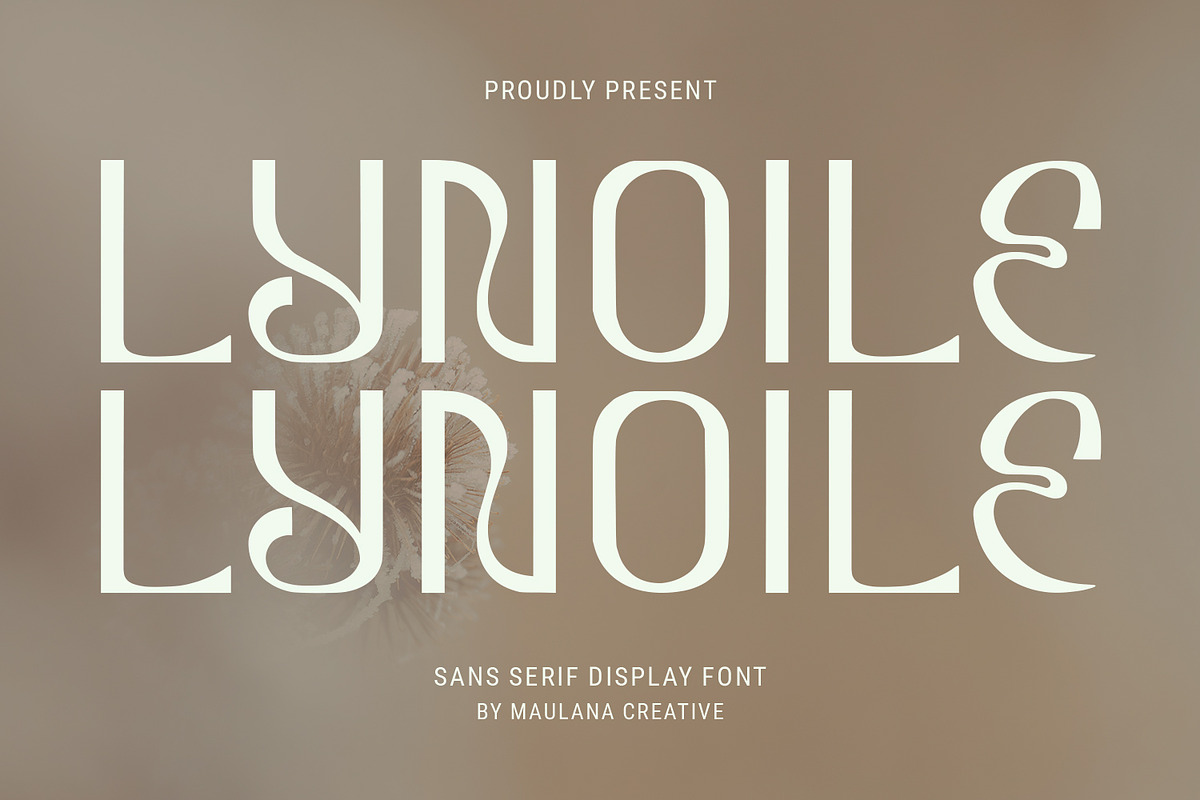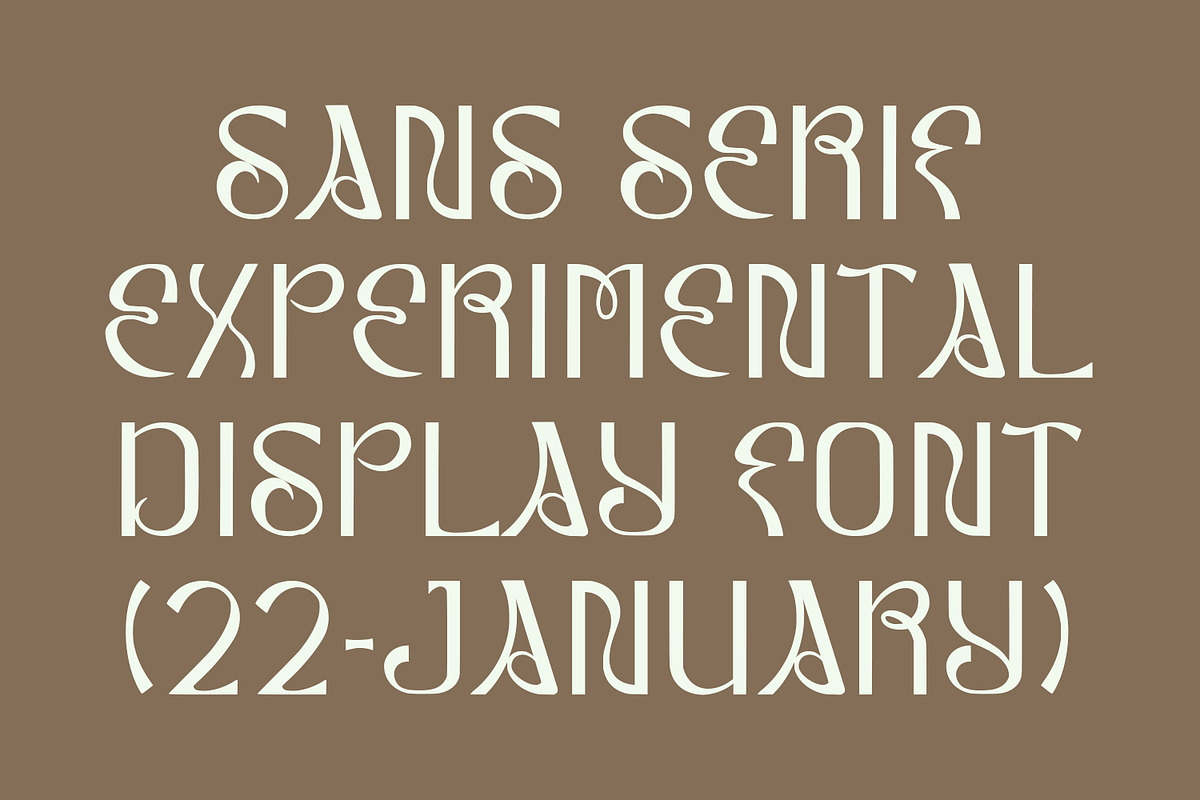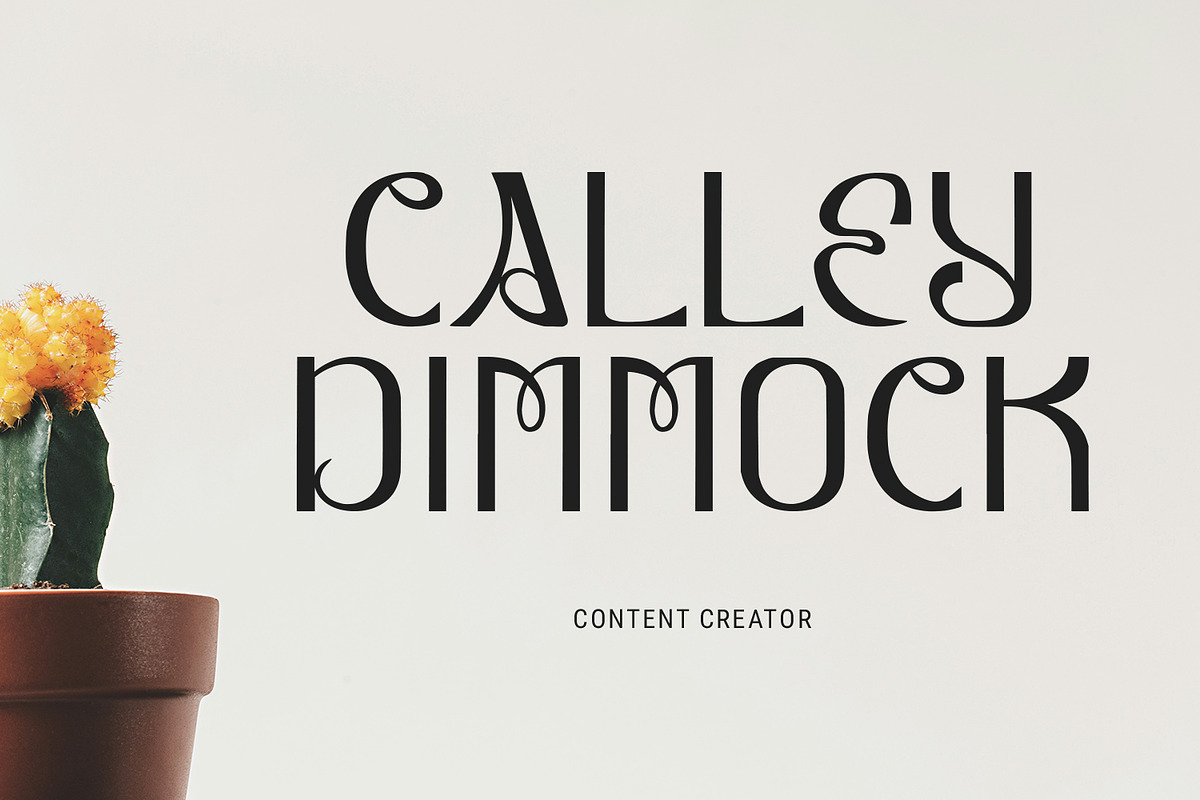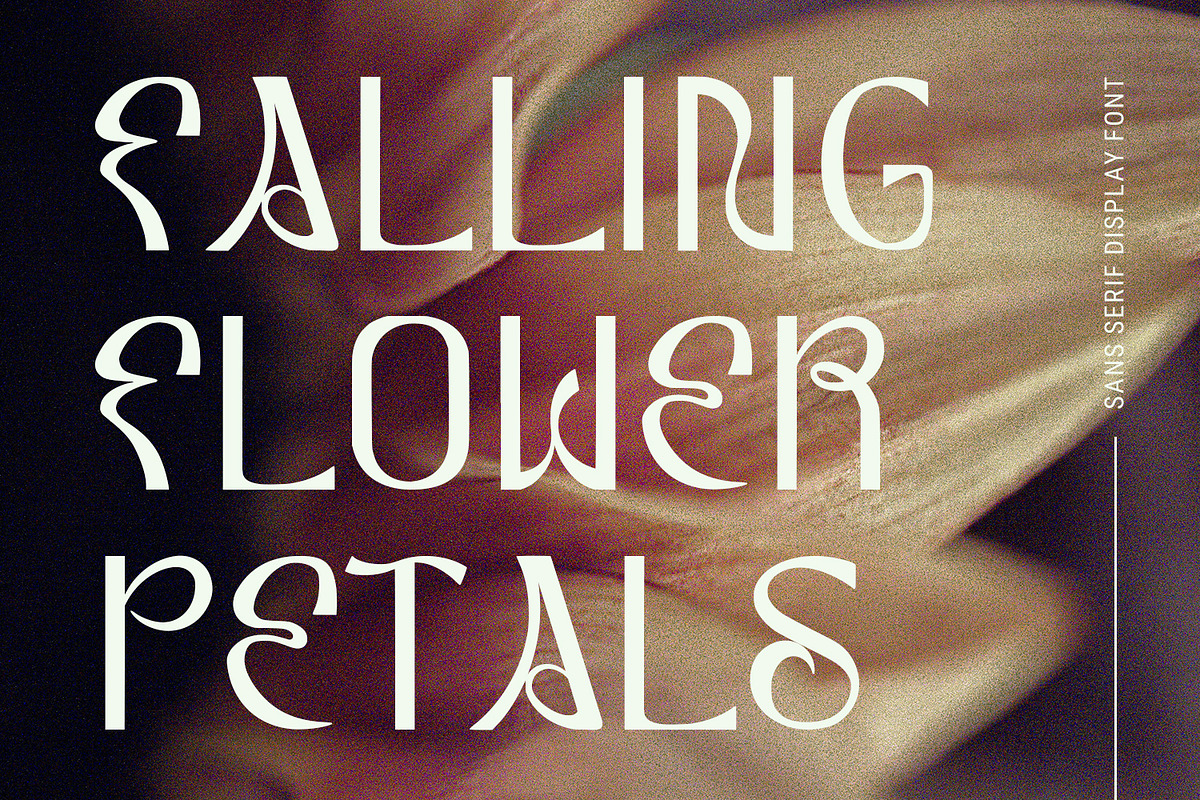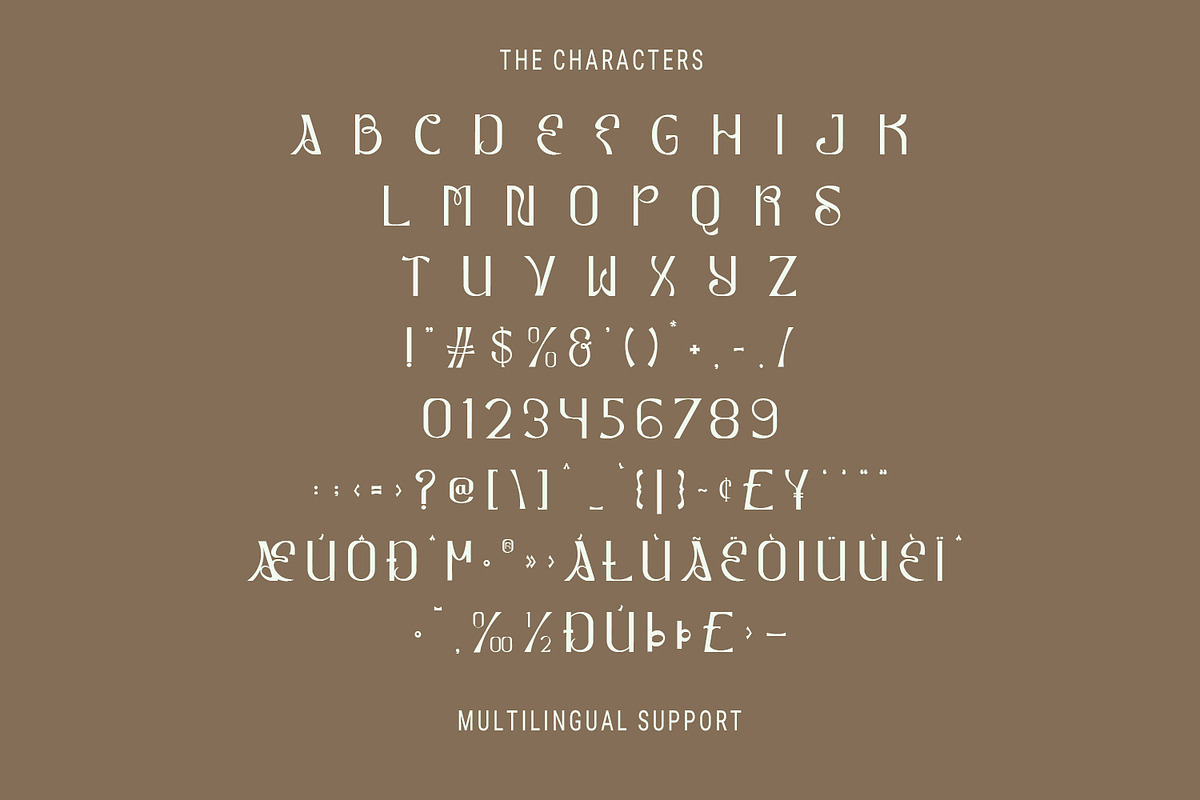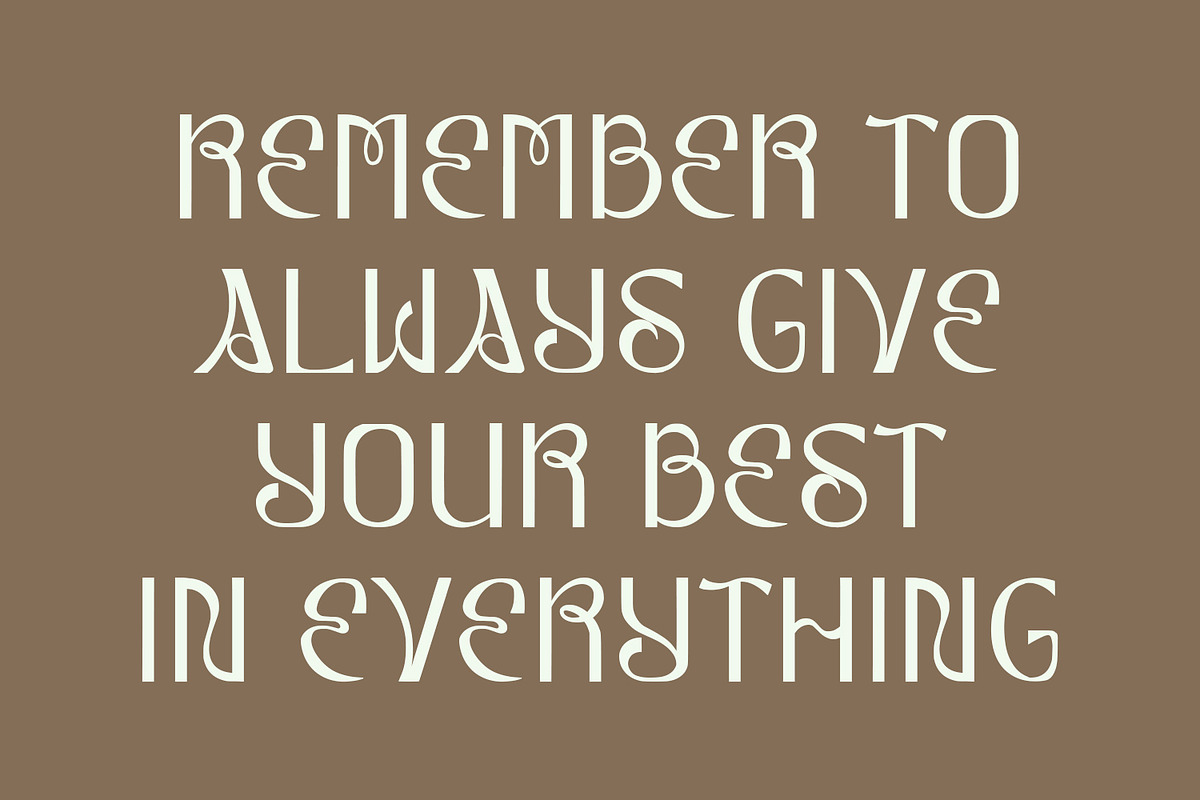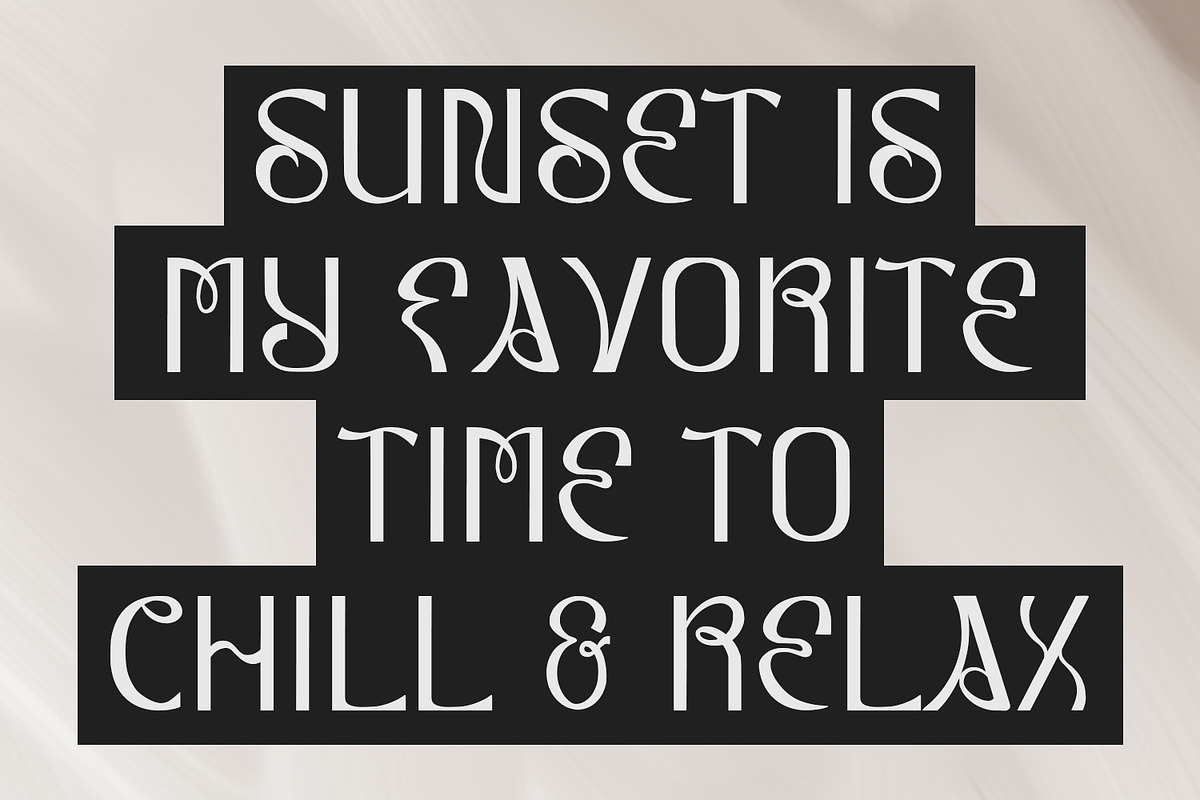
Lynoile Sans Serif Display Font
Lynoile is a sans serif decorative display font. Fun character with a instrumental awesome style to give you an extra creative work. Lynoile font support multilingual more than 100+ language. This font is good for logo design, Social media, Movie Titles, Books Titles, a short text even a long text letter and good for your secondary text font with script or serif. Make a stunning work with Lynoile font.